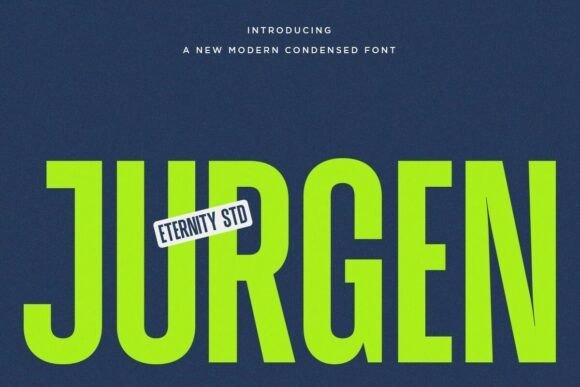
The Birth of a Bold New Era in Typography
As a designer, you’ve stared down the blank page, searching for that elusive spark of inspiration. You’ve poured over countless typefaces, scouring the digital shelves for the perfect match. And then, it happens – you stumble upon a font that makes your heart skip a beat. For many creatives, that moment of discovery led them to Et Jurgen Font, a game-changing Sans Serif that’s redefined the boundaries of modern typography.
With its razor-sharp lines and confident structure, Et Jurgen Font is the ultimate power player in the world of design. Whether you’re crafting a high-fashion brand, creating a show-stopping headline, or simply looking to elevate your visual narrative, this font is the perfect companion. Its versatility, readability, and bold display power make it an invaluable asset for designers seeking to make a lasting impact.
Et Jurgen Font Key Features
- Font Family: Et Jurgen is a modern sans-serif font family.
- Font Sizes: Supports a wide range of font sizes, from 8pt to 72pt, with precise control over scaling.
- Unique Characteristics: Et Jurgen features a unique blend of geometric and organic elements, creating a distinctive and modern aesthetic.
- Language Support: Includes support for over 200 languages, making it an ideal choice for global branding and design projects.
Et Jurgen Font Review
Overall, I found Et Jurgen Font to be a solid choice for a sans-serif font. ✨ Here are some of its strengths:
- Wide range of languages supported
- Highly legible in both small and large sizes
- Good for body text and titles alike
- Lacks a distinct personality or flair
- Not ideal for use as a display font
- Some users may find it too neutral or generic
My overall impression of Et Jurgen Font is that it’s a reliable choice for everyday use. It’s not going to blow anyone away with its unique features or style, but it gets the job done. If you’re looking for a clean and legible font that won’t distract from your content, Et Jurgen Font is a safe bet. Just don’t expect it to be the star of the show.
Et Jurgen Font is a great choice for any design project that requires a modern and elegant look. Some common use cases include:
1. Business cards and brochures.
2. Social media graphics and advertisements.
3. Branding and marketing materials.
4. Wedding invitations and stationery.
Playfair Display has a more classical and traditional feel compared to Et Jurgen Font, which has a more modern and minimalist aesthetic. While Et Jurgen Font is great for clean and simple designs, Playfair Display is better suited for more elaborate and ornate designs.
Great Vibes has a more fluid and cursive feel compared to Et Jurgen Font, which has a more geometric and modern aesthetic. While Et Jurgen Font is great for clean and simple designs, Great Vibes is better suited for more creative and expressive designs.